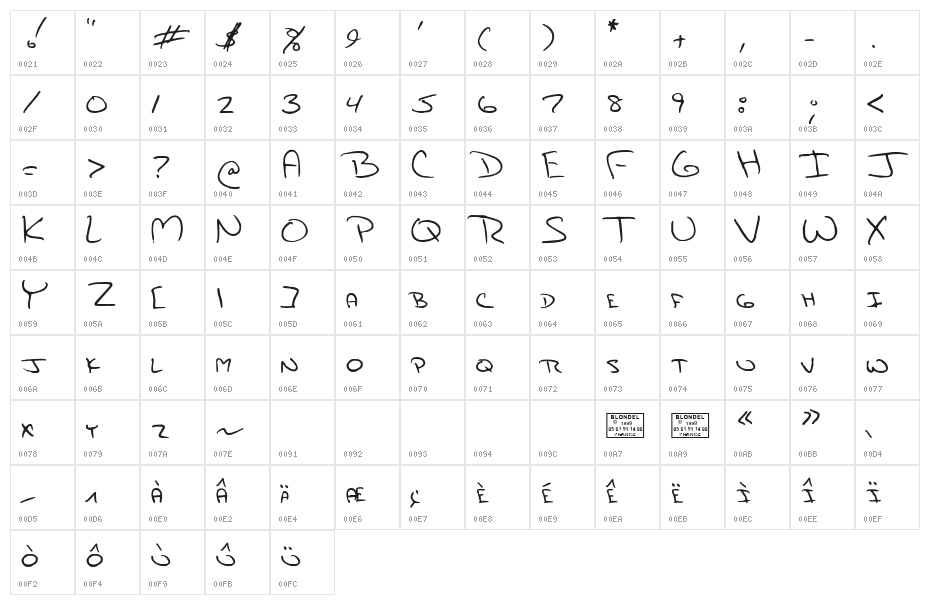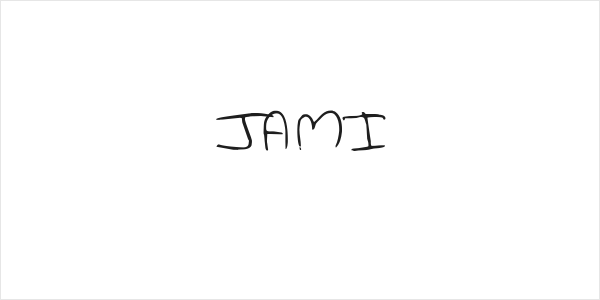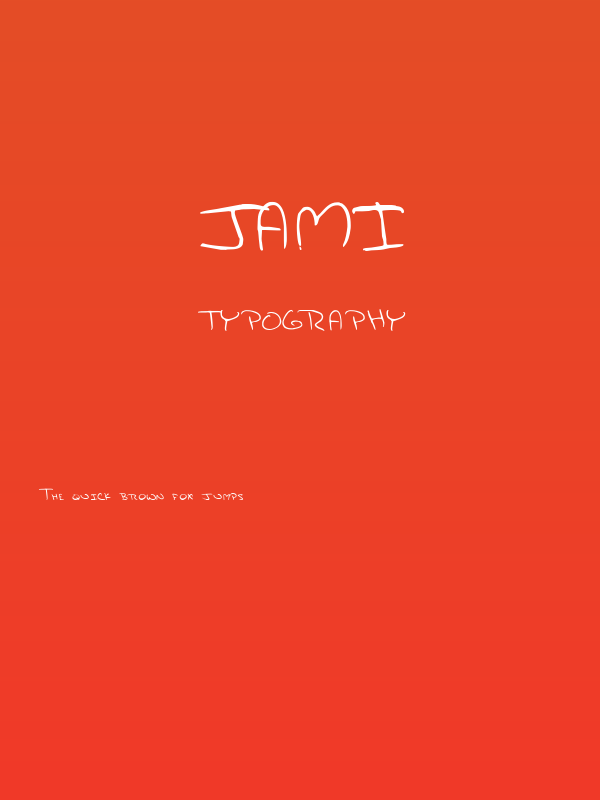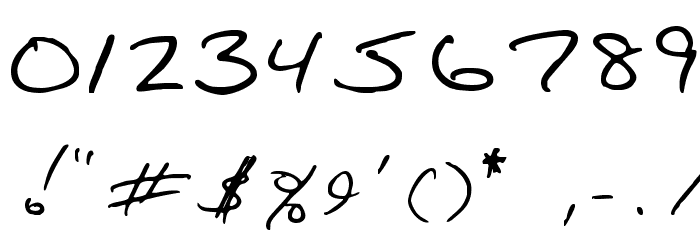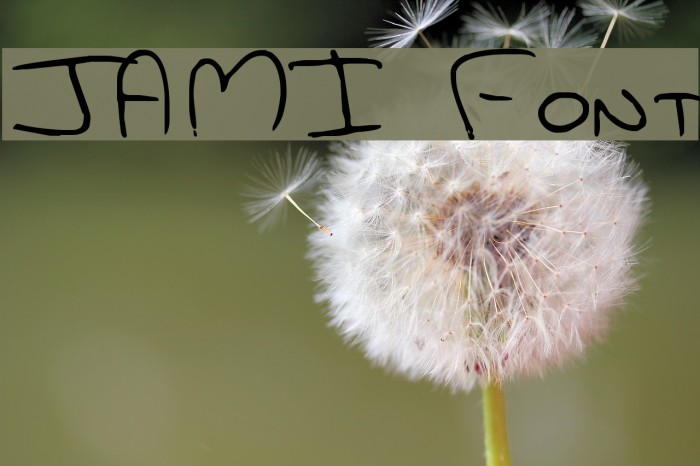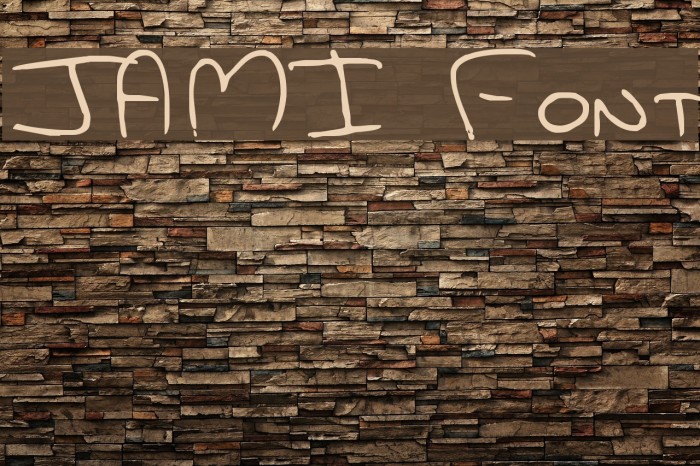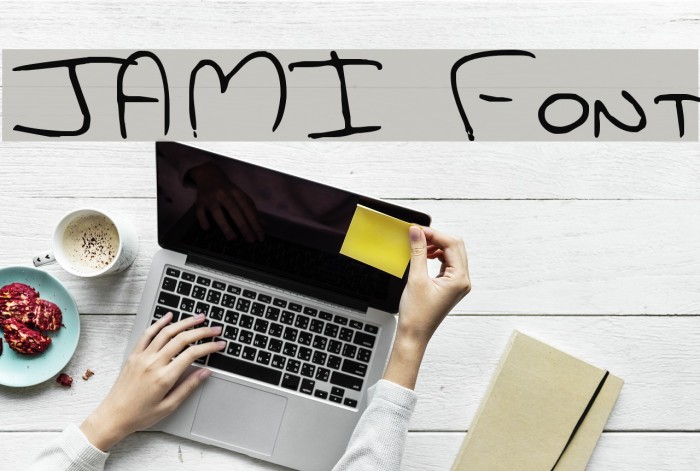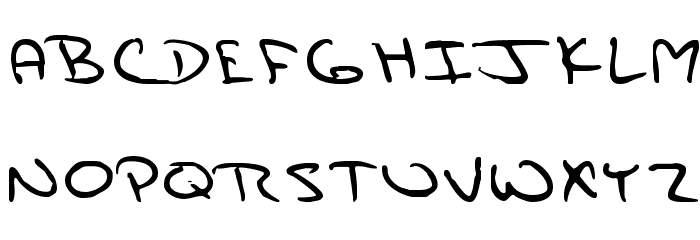
JAMI Font
JAMI Description
This font features a playful and casual handwritten style, characterized by its irregular and slightly tilted letterforms. The strokes are uneven, giving it a dynamic and lively appearance. The uppercase and lowercase letters maintain a consistent flow, while the numerals and special characters complement the overall aesthetic. The font's informal nature makes it suitable for projects that aim to convey a sense of approachability and creativity. Its unique style can add a personal touch to various design elements.
| Overall Style | Casual, Playful |
| Use Case | Headlines, Informal text, Creative projects |
| Proposed Projects | Ideal for greeting cards, children's books, informal invitations, and creative branding. |